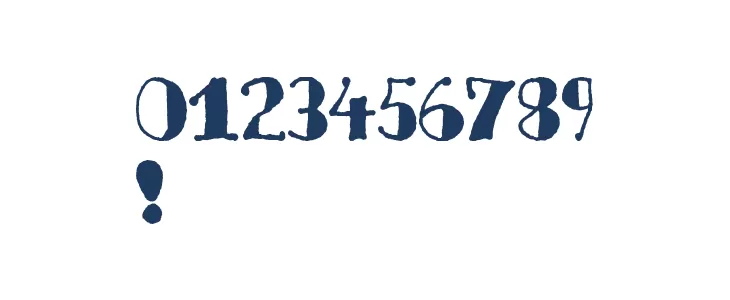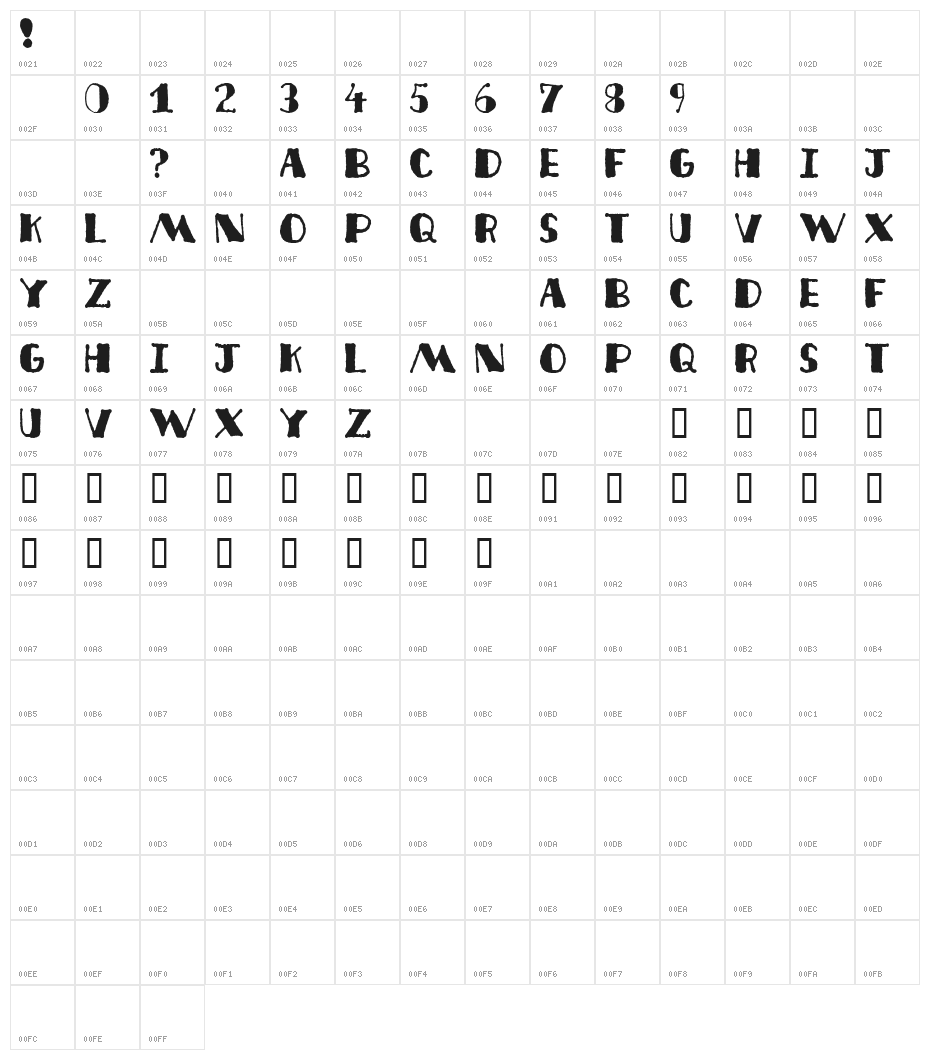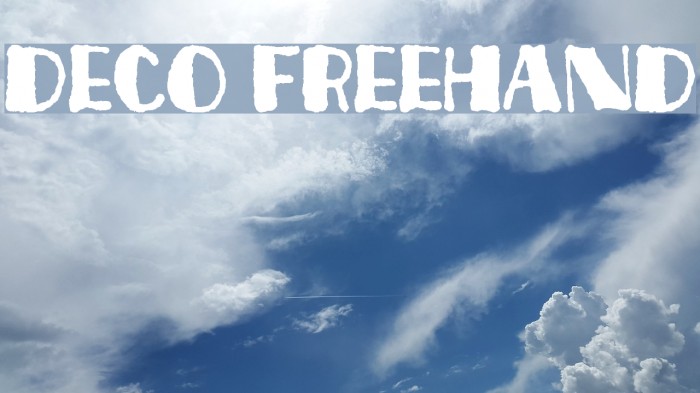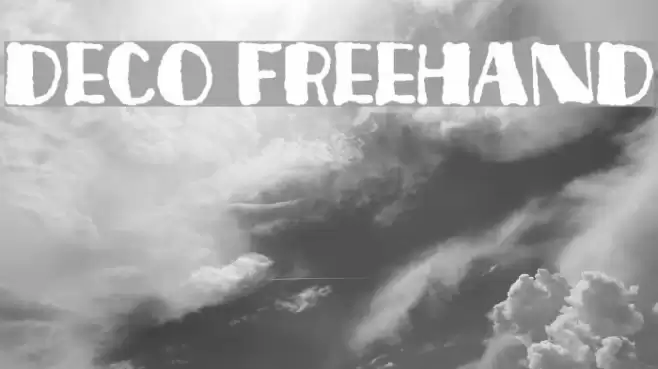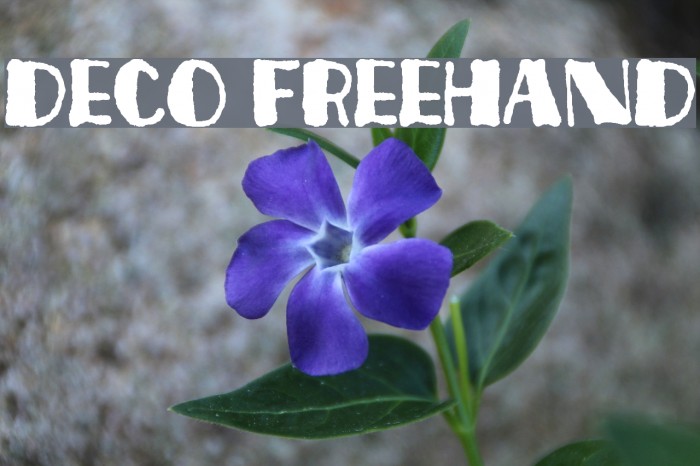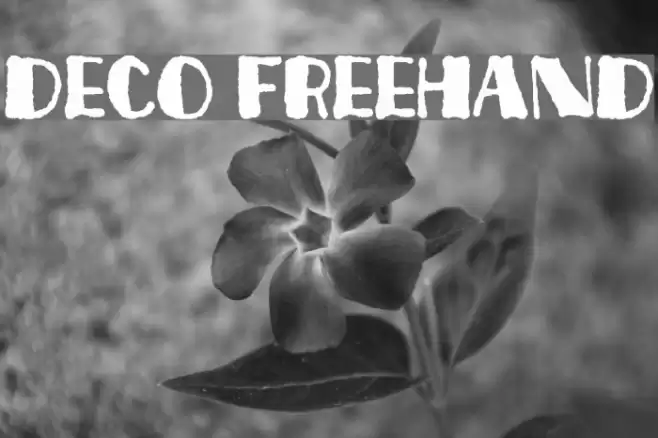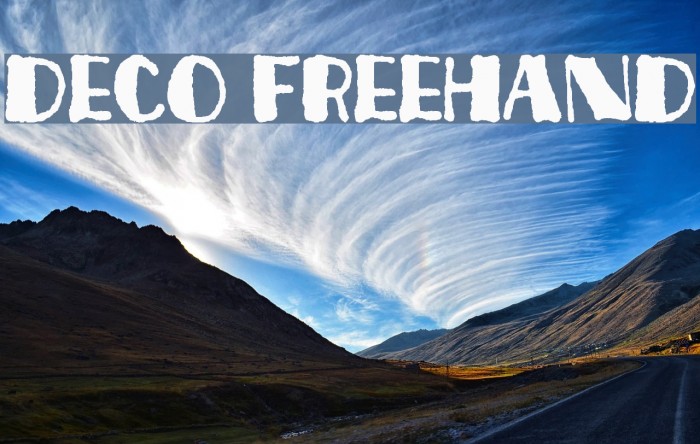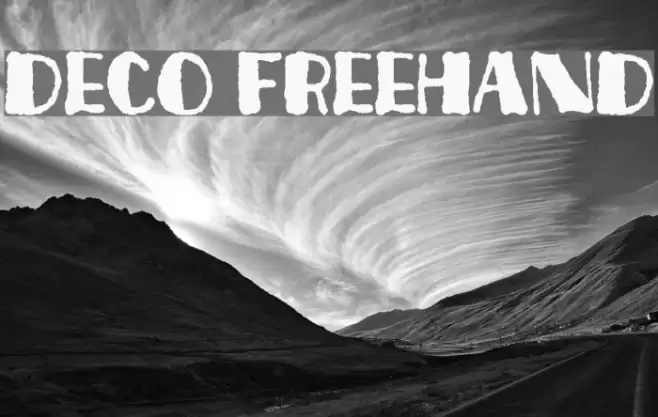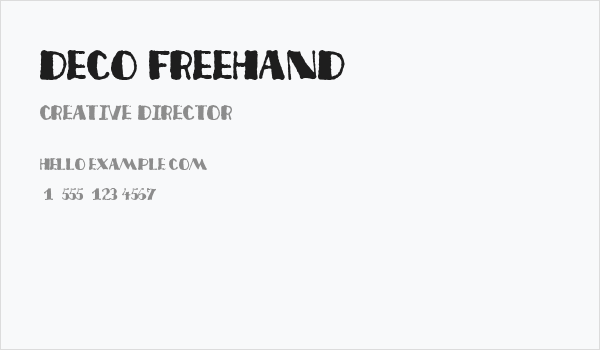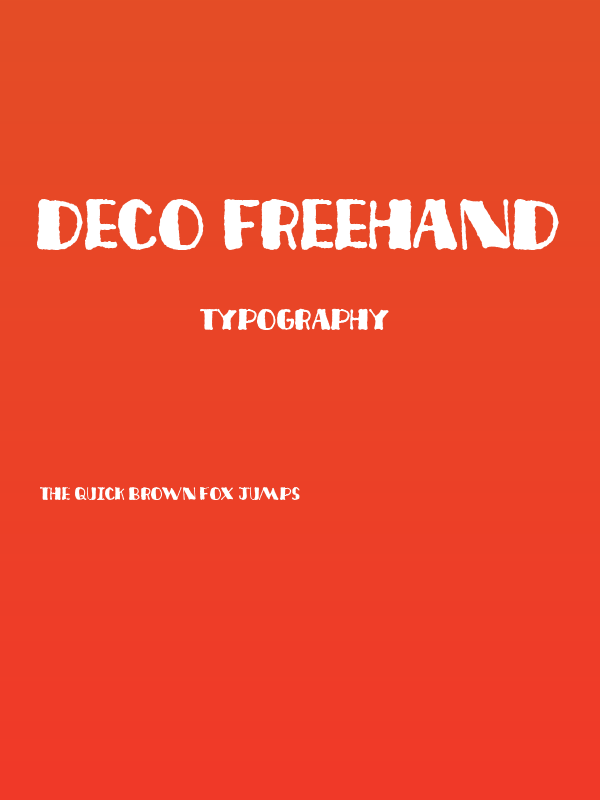
Deco Freehand Font
Deco Freehand Description
This font features a bold and artistic style, reminiscent of freehand brush strokes. The characters exhibit a playful and dynamic appearance, with varying stroke thicknesses that add a sense of movement and energy. The uppercase letters are particularly striking, with a strong presence and unique flair. The numbers and special characters maintain the same lively aesthetic, making the font versatile for creative projects. Its handcrafted look gives it a personal touch, ideal for designs that require a human element. The overall design is both expressive and visually engaging, making it suitable for eye-catching headlines and artistic displays.
| Overall Style | Artistic, Expressive |
| Use Case | Headlines, Artistic displays, Branding |
| Proposed Projects | Ideal for posters, artistic designs, branding materials, and creative headlines. |